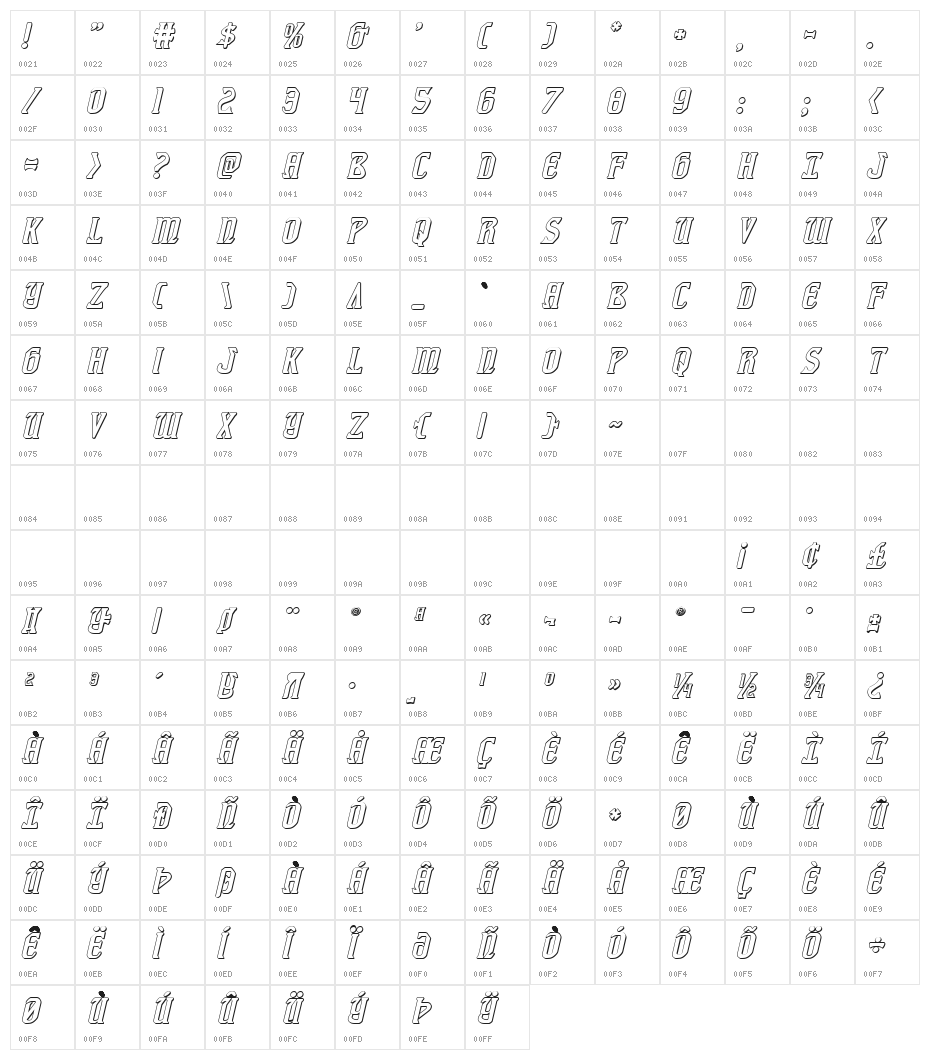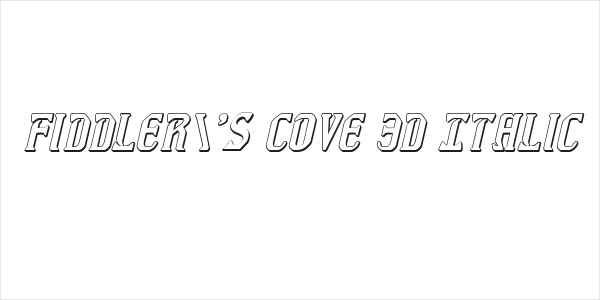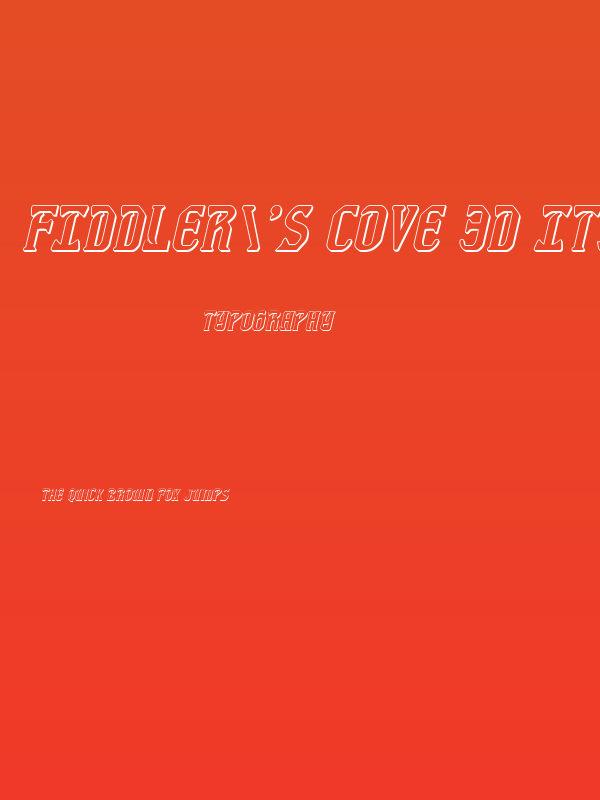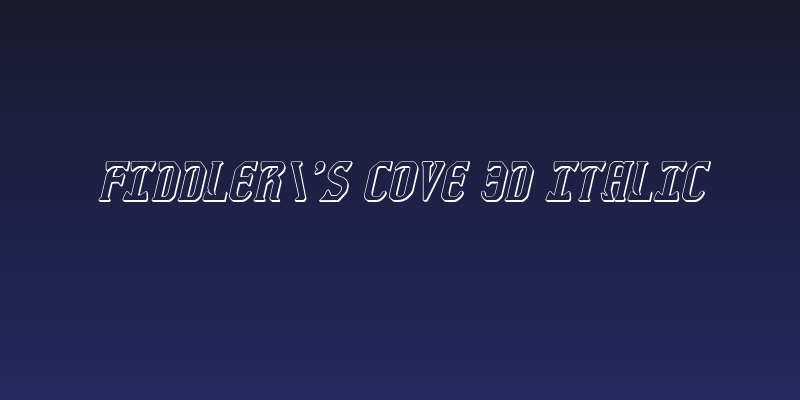
Fiddler's Cove 3D Italic Font
Fiddler's Cove 3D Italic Description
This font features a bold, three-dimensional design with an italic slant, giving it a dynamic and eye-catching appearance. The characters are outlined, creating a shadow effect that enhances the 3D illusion. The uppercase and lowercase letters maintain a consistent style, with sharp angles and clean lines. The numerals and special characters are designed to match the overall aesthetic, making them suitable for a variety of uses. The font's unique style makes it ideal for projects that require a strong visual impact.